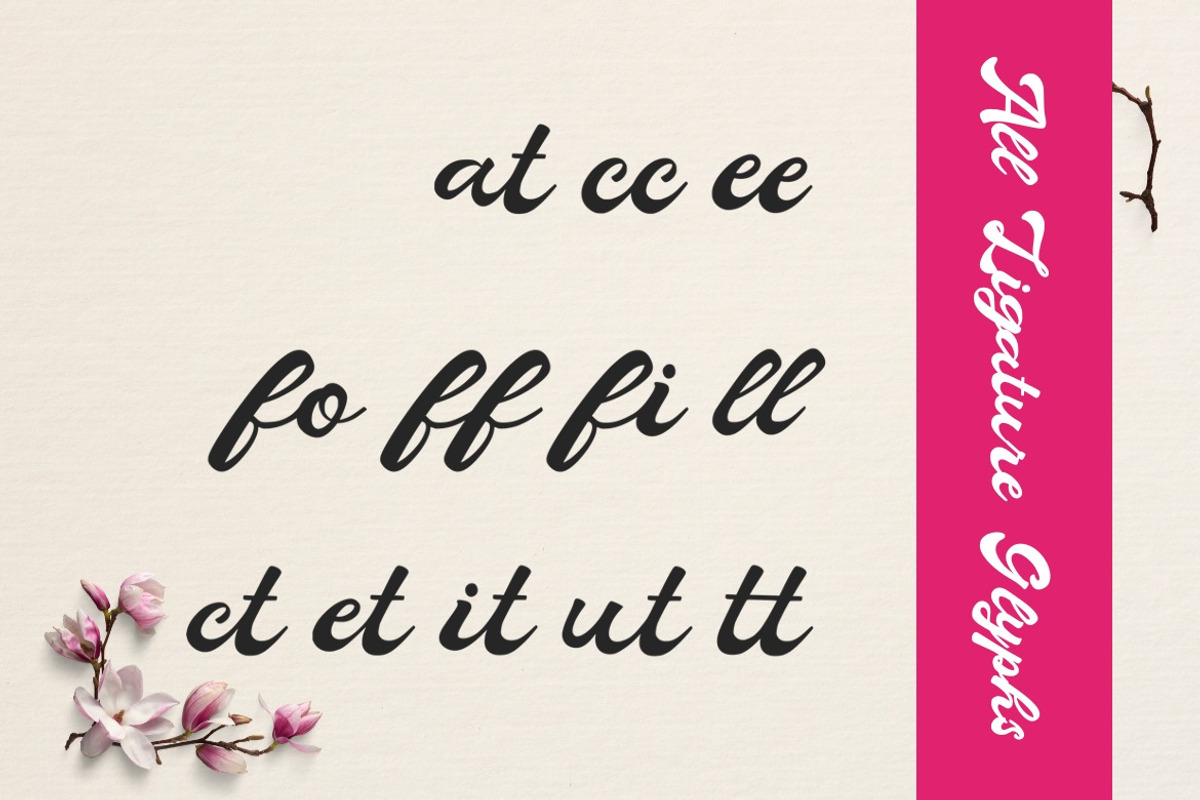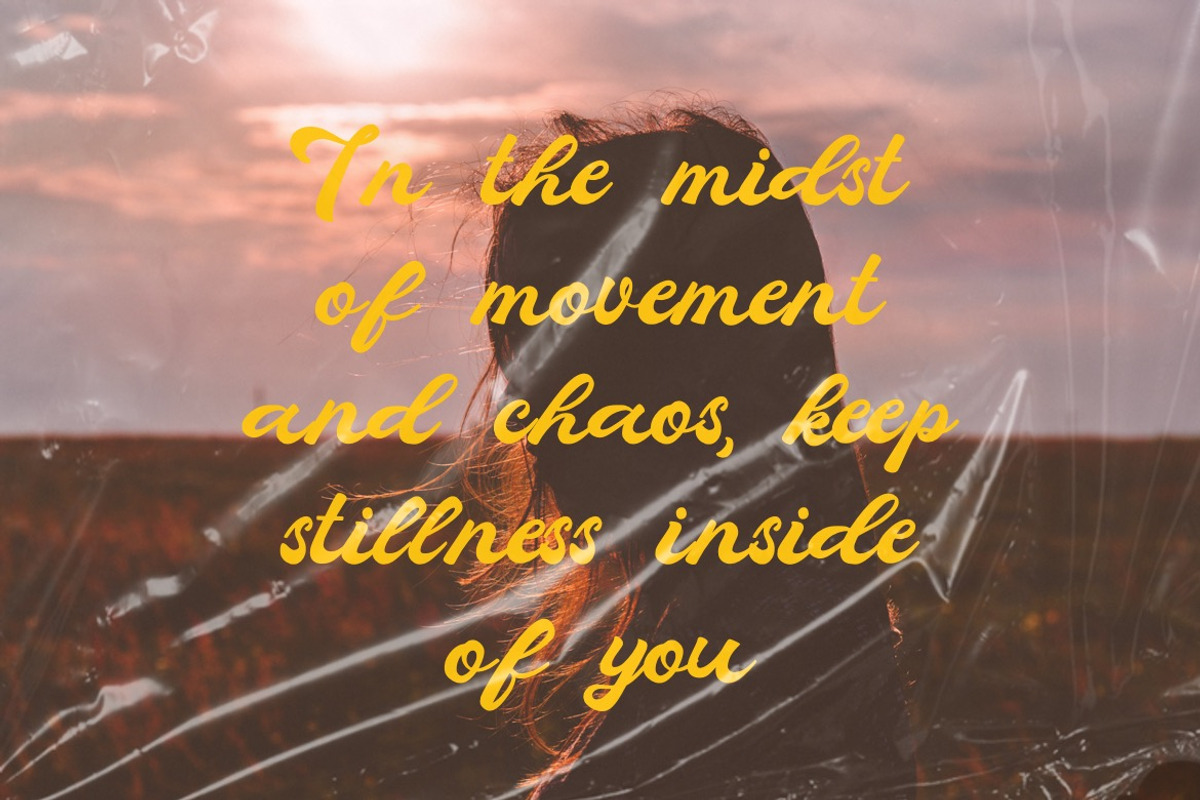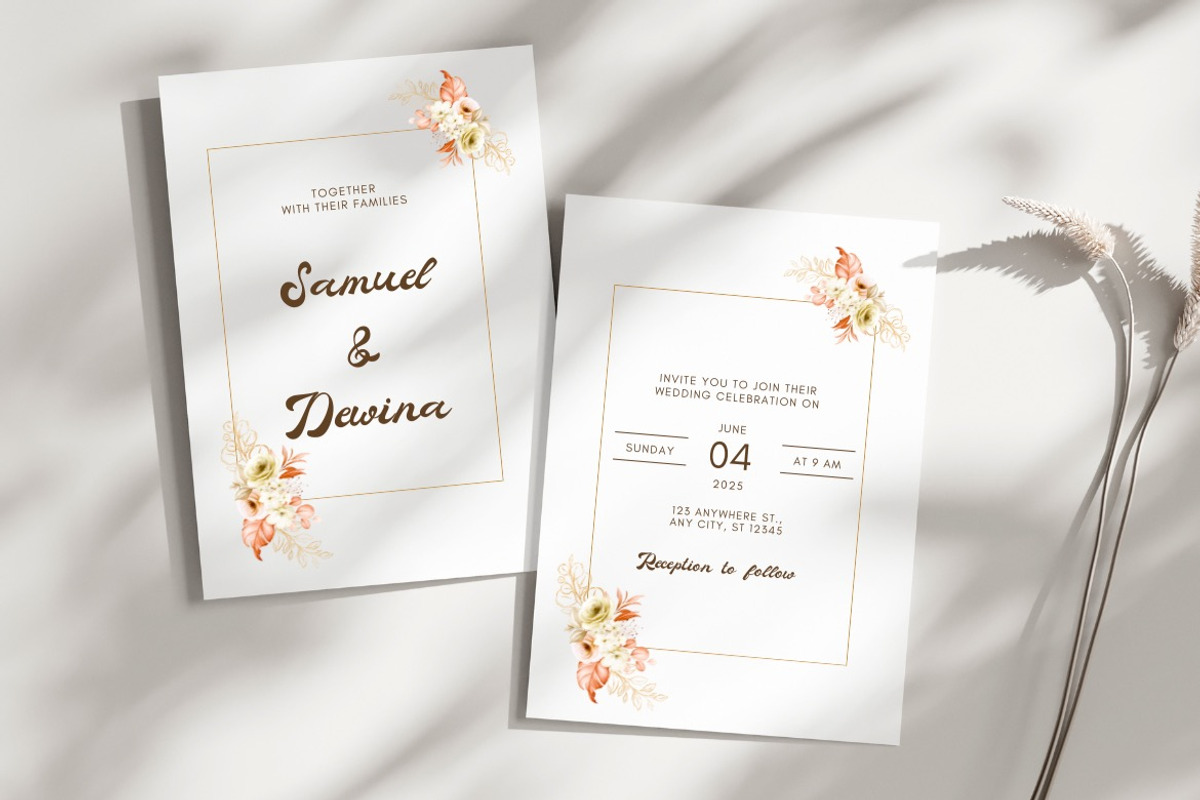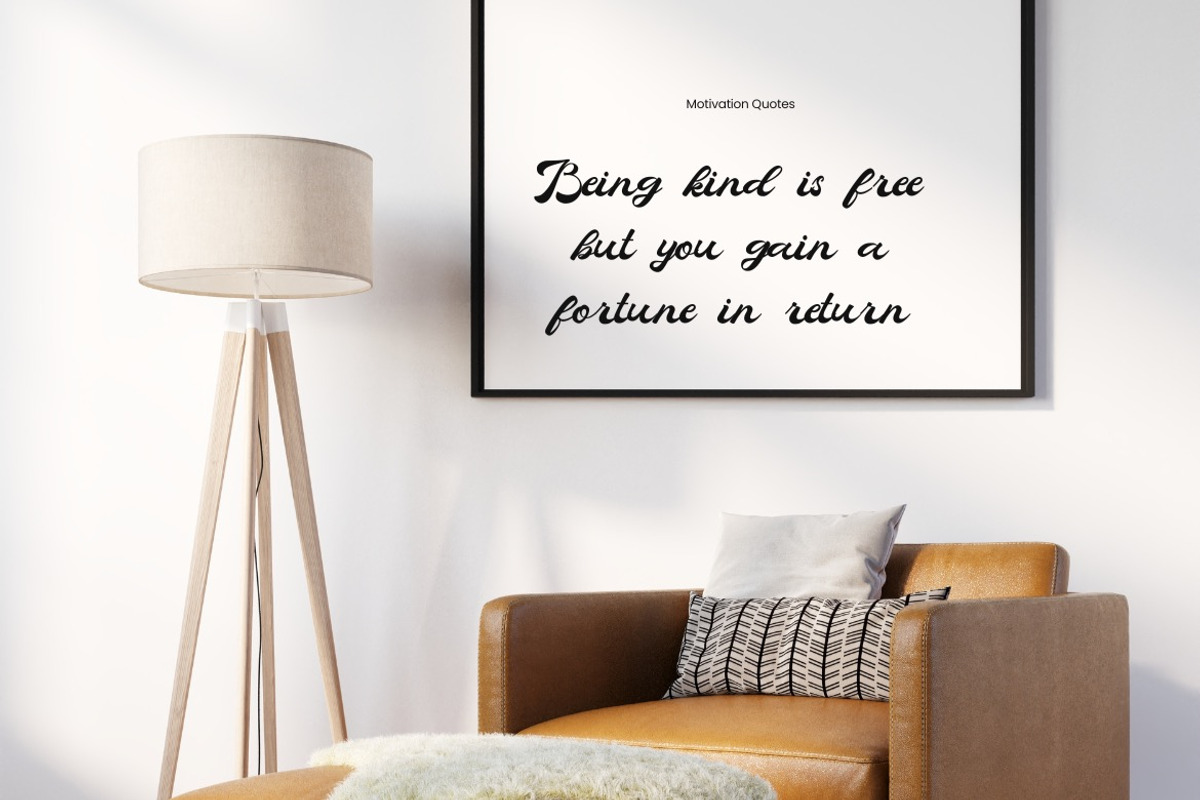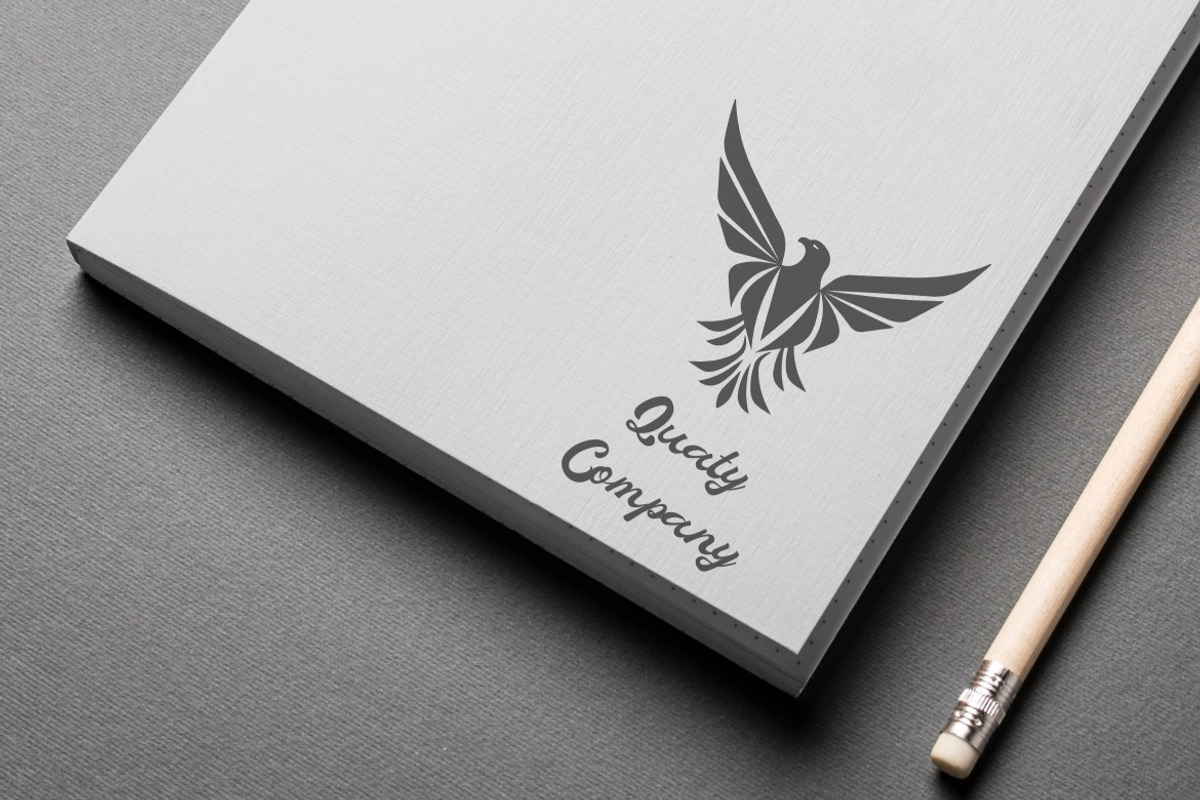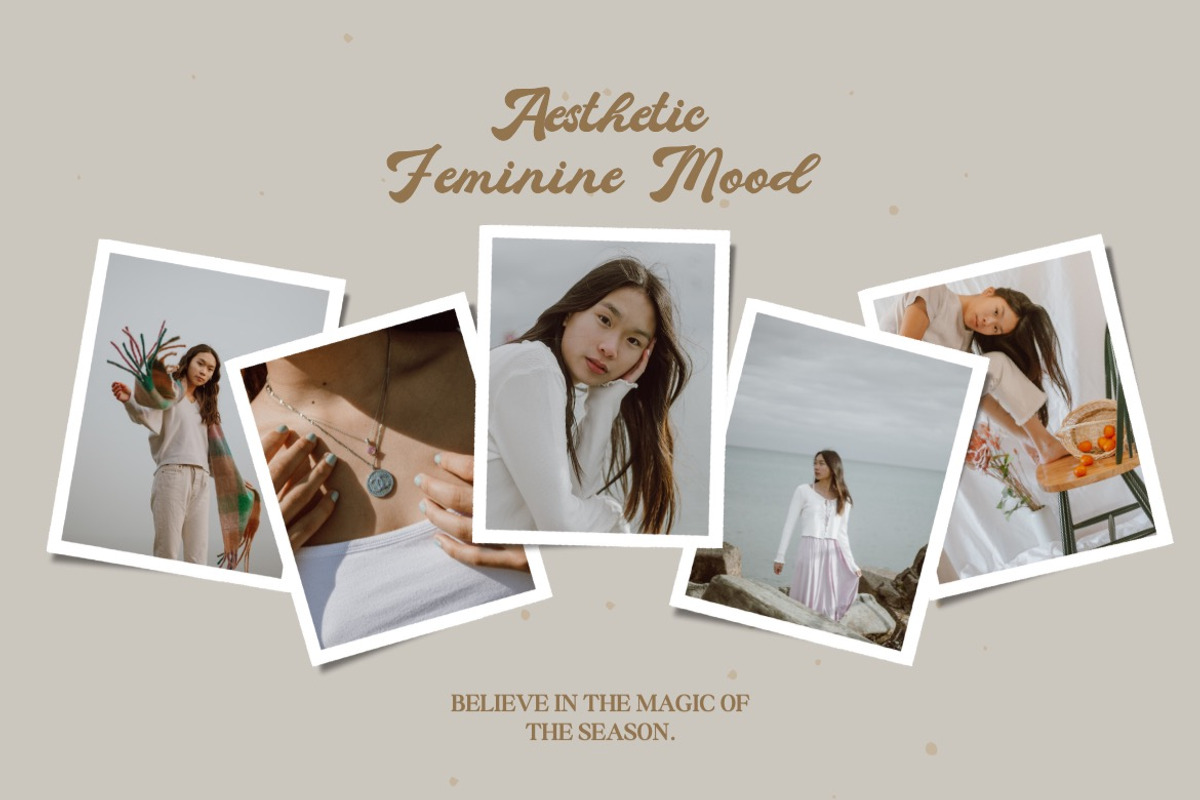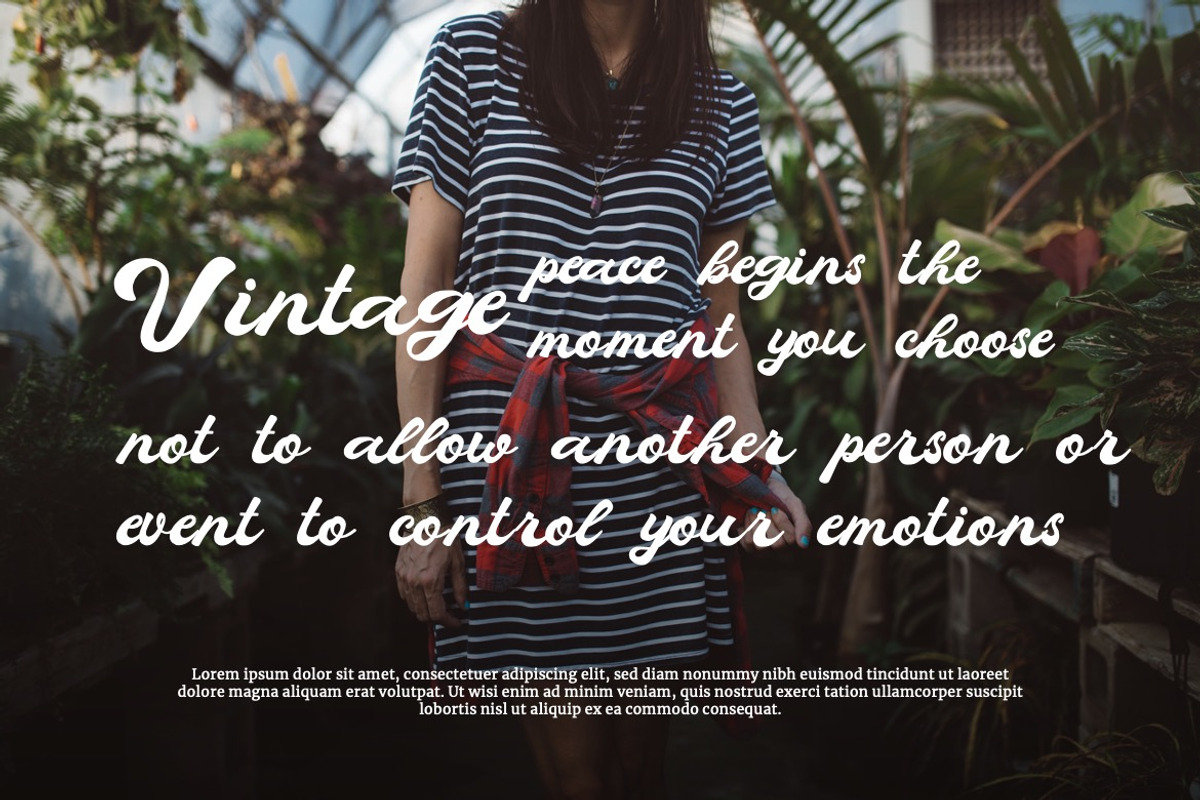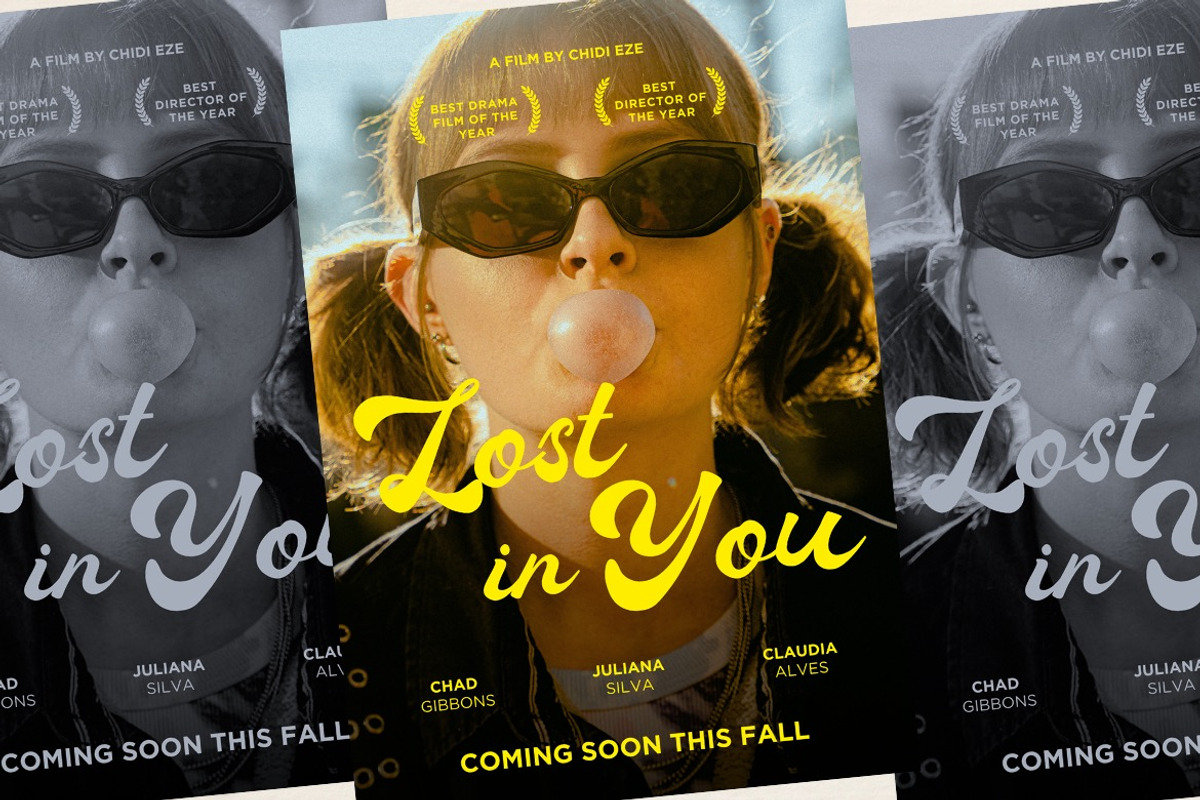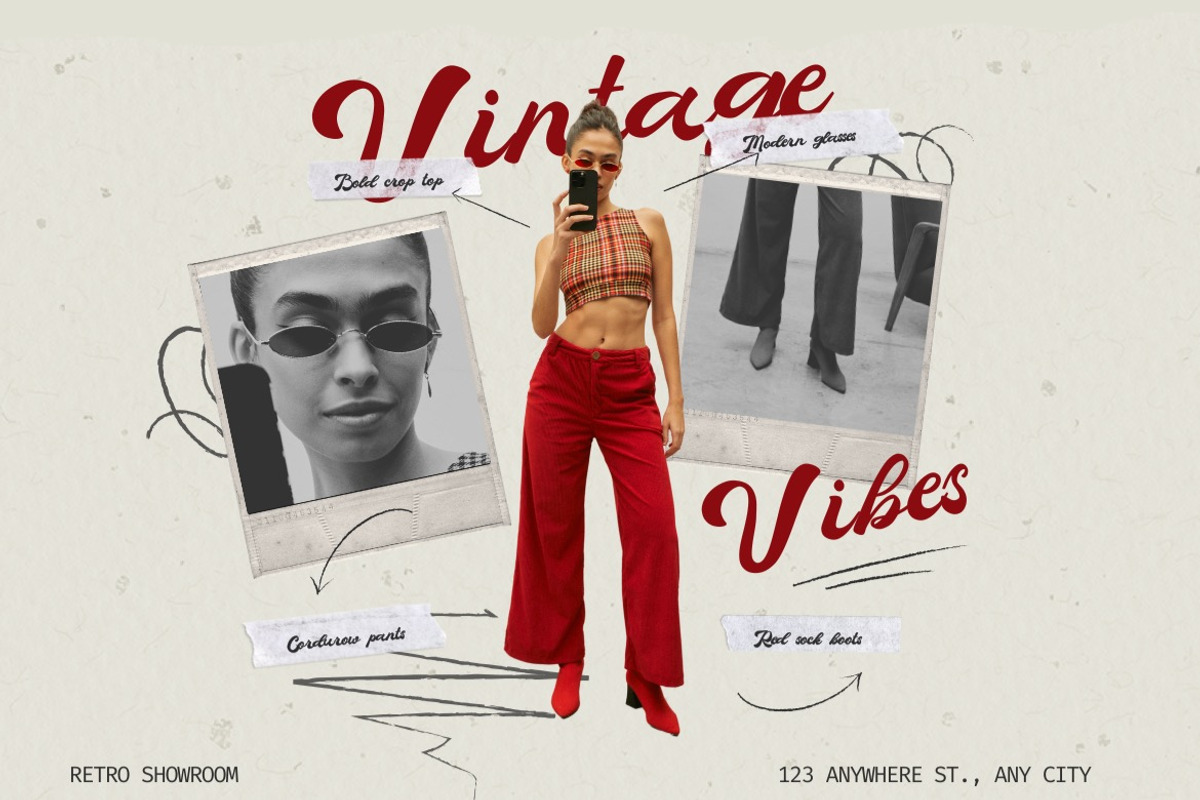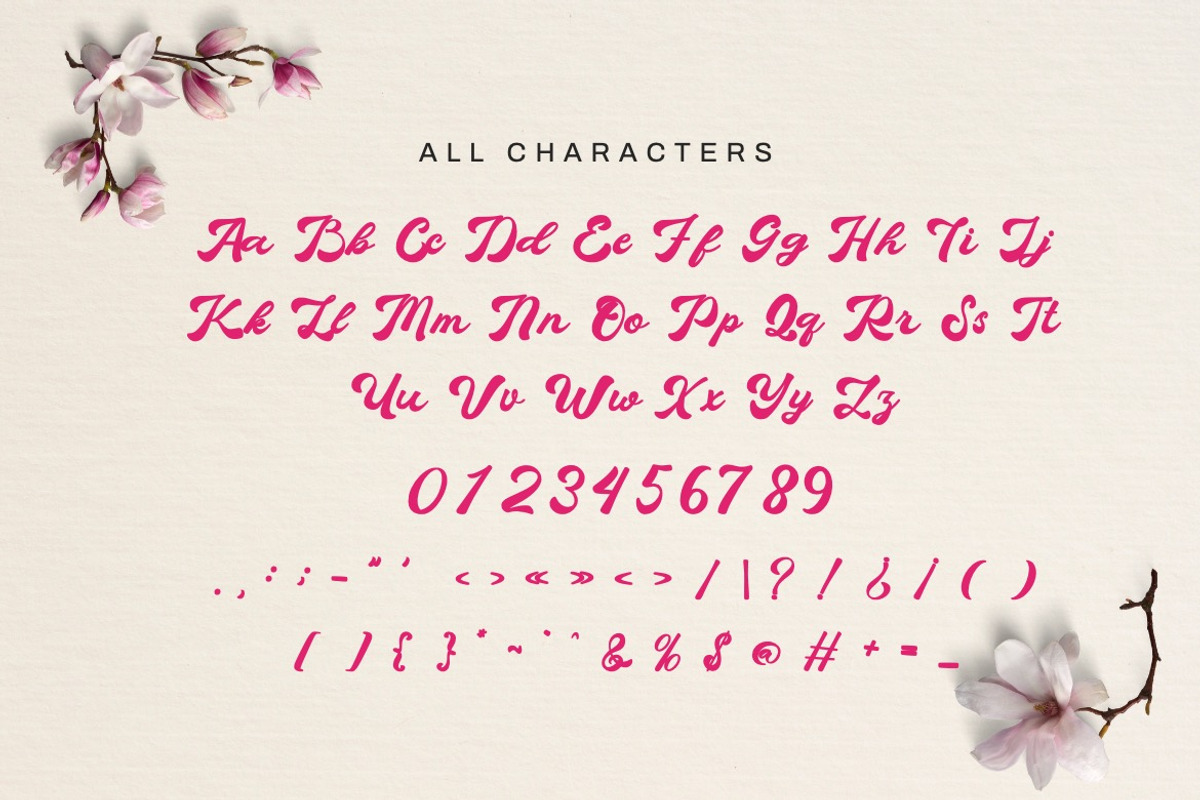
Quaty Heart - Retro Script Font
Introducing Quaty Heart - Retro Script Font
This Font is a delicate, elegant and flowing handwritten font. It has beautiful and well as a unique blend of ligatures a letter, so that the authors compose it with a and little swirly embedding, so that a modern font is formed and ready to make a statement by adding elegant and unique flair to your next design project. Add it to your most creative ideas and notice how it makes them come alive!
• Alternate & Ligature